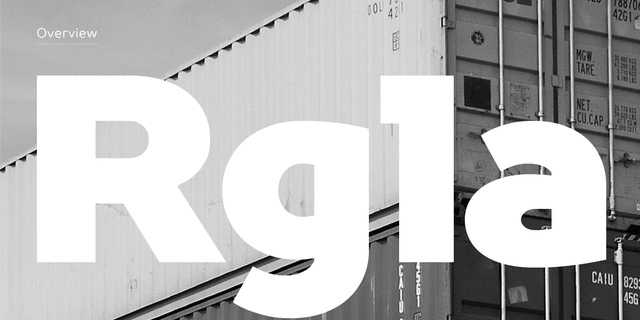
About TT Prosto Sans — this fontfamily for any occasion. You can use these fonts almost everywhere. The modern open grotesque forms and classic fontfamily formula: Thin, Light, Regular, Bold, Black and Italics. Prosto Sans is the assistant to work for any projects. Typeface designed by Ivan Gladkikh in TypeType studio in 2014.
Associations for font family TT Prosto SansTypeface personality and character:
minimalistic, crisp, delicate, clean, easy, chilly, fresh, fashionable, thin, modern, laconic, clear, flat, high-quality, urban, logical, accurate, globalized, globalistic, intimate, fragile, wire, simple, solid, available, elementary, correct, strict, serious, stable, static, independent, responsible, west, business, cold, calm, comfortable, indifferent, low key, significant, mandatory, reputable, strong, convincing, important, motivating, reliable, heavy, urbanistic, rude, notable, bright, active, splashy